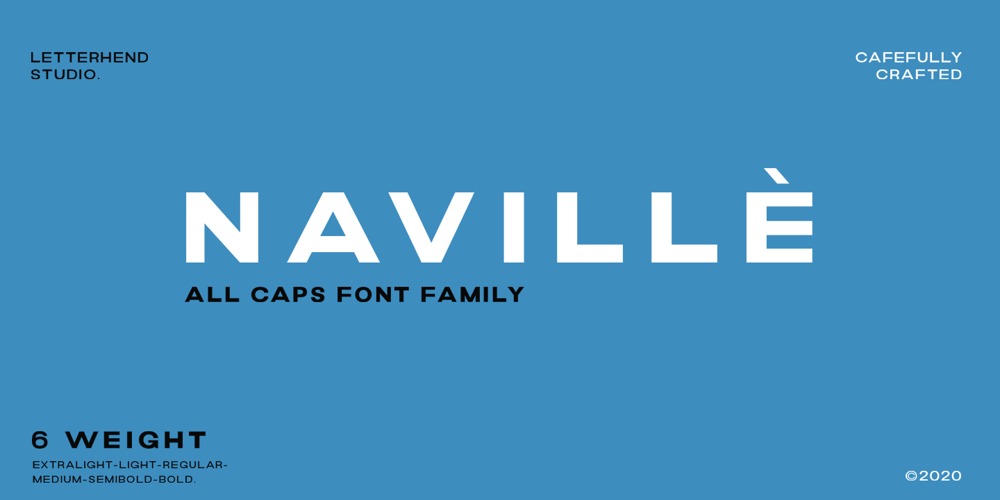
Naville Font Family was designed by Hendry Juanda and published by Letterhend. Naville contains 6 styles and family package options. Introducing, Naville Sans, the all caps font family. This family has 6 weights – extra light, light, reguler, medium, semibold and bold. The clean and simplicity look of the font suitable for wide range of graphic needs especially for headline, title, sign board, information board, billboard and for UI/UX design.